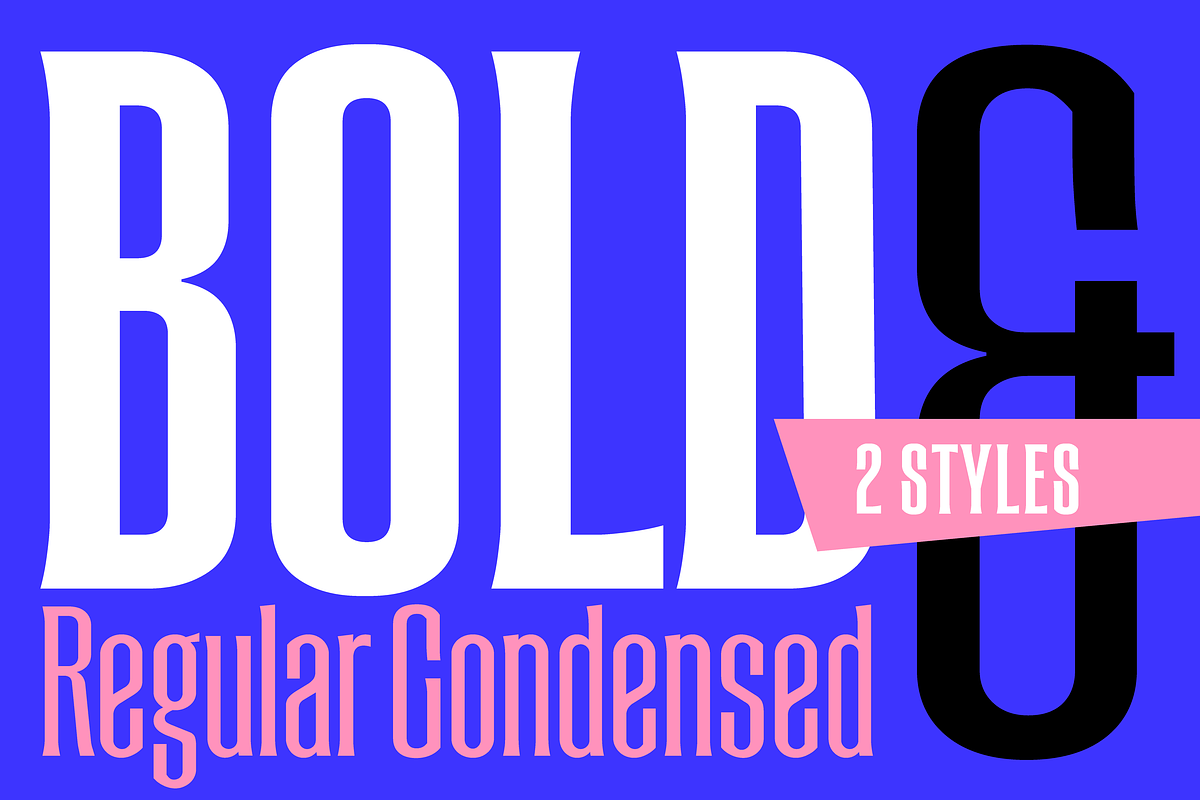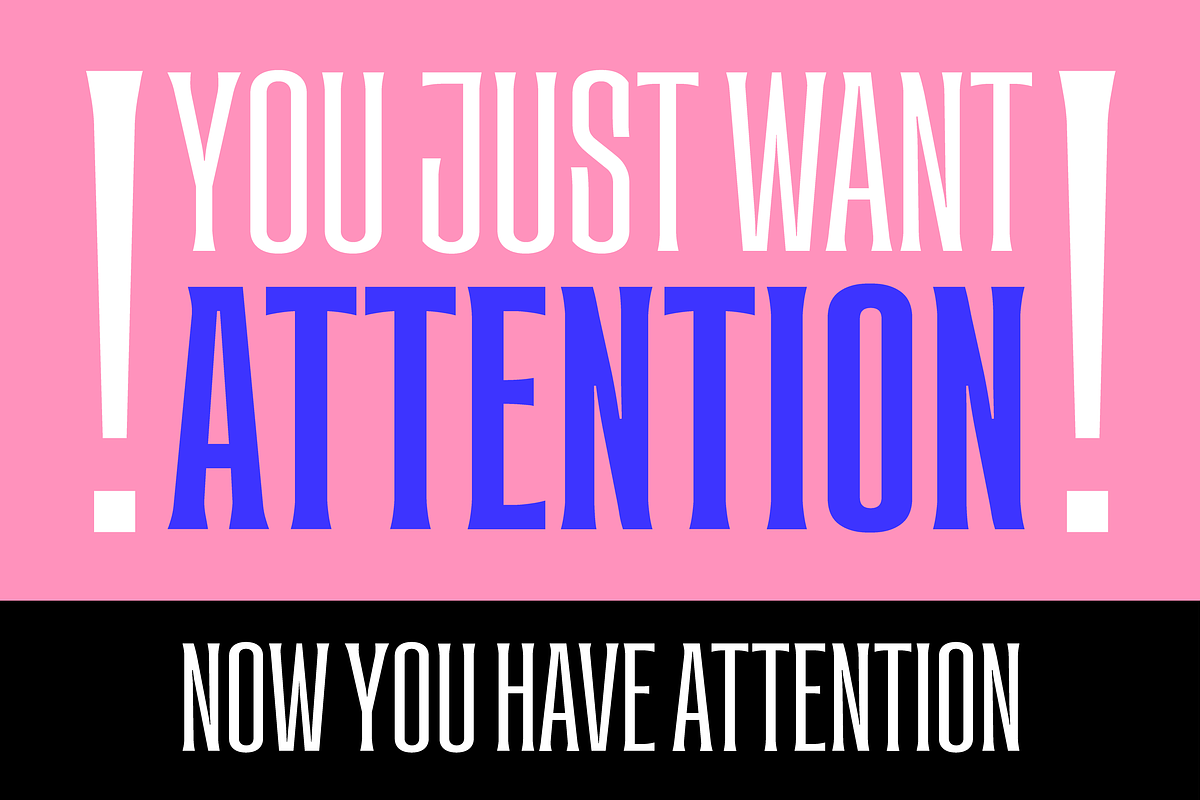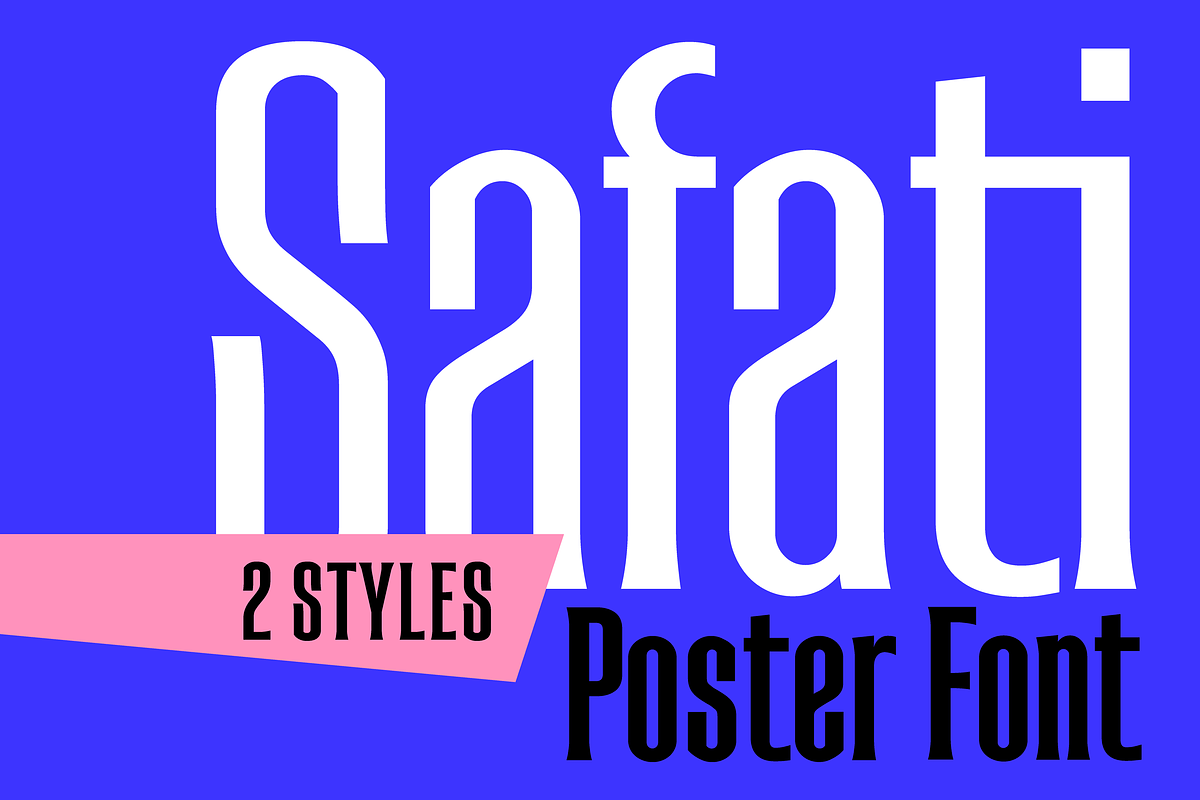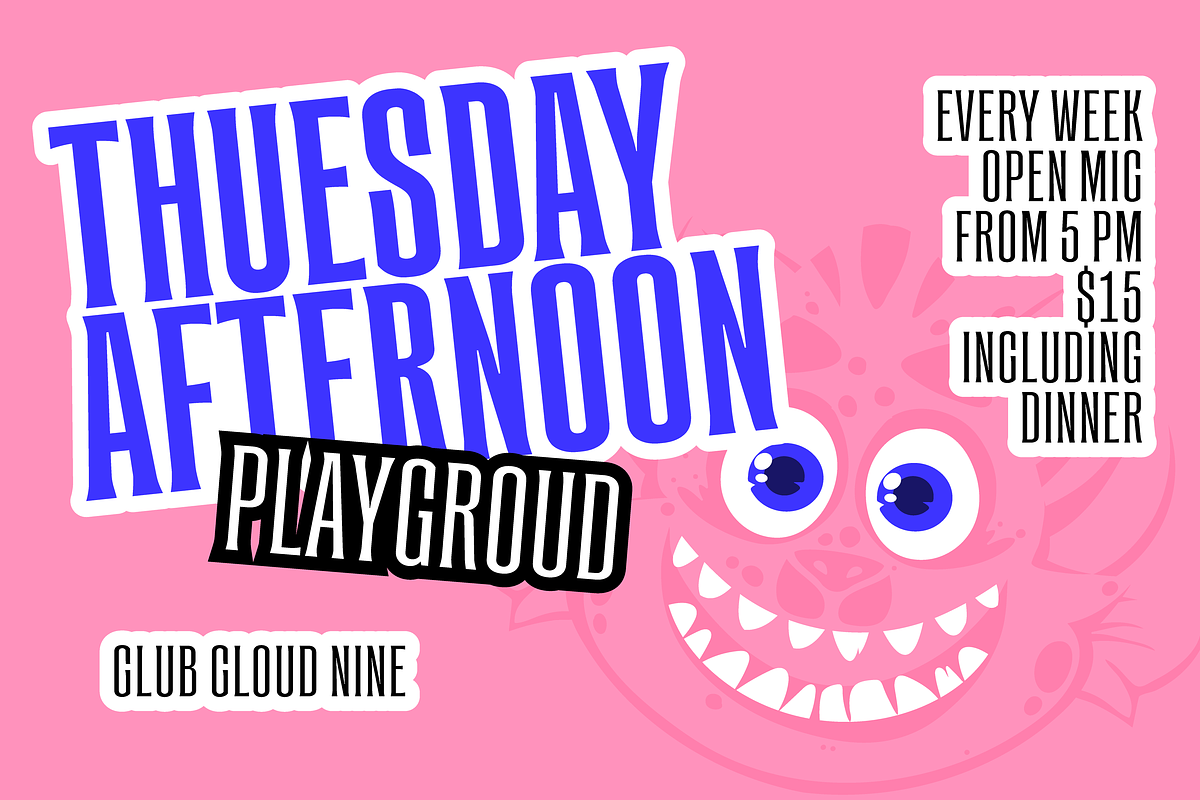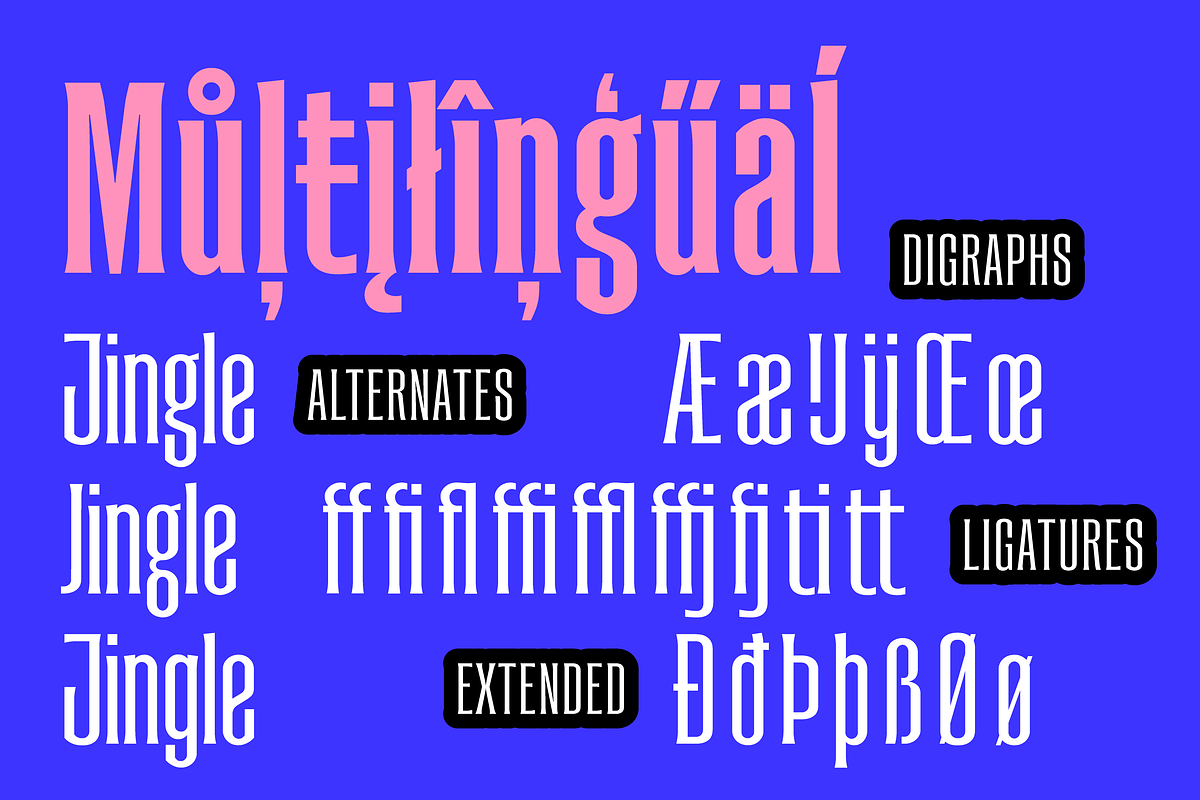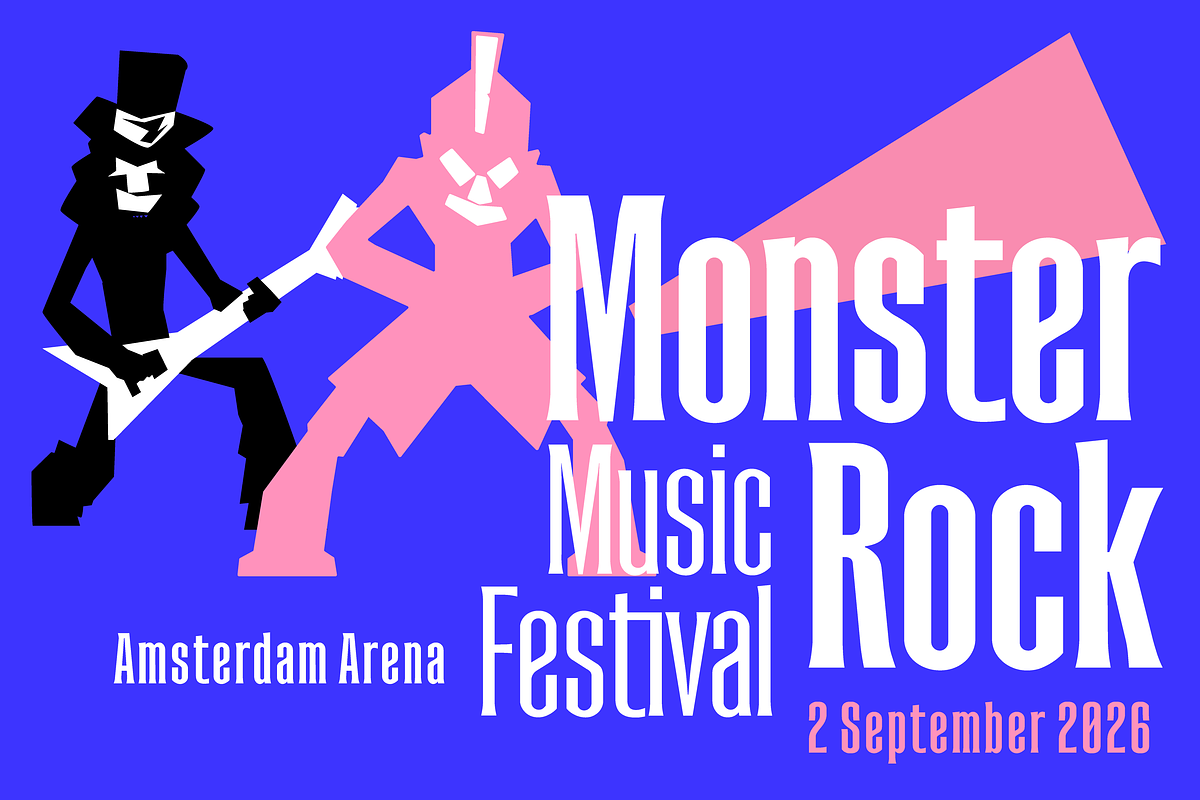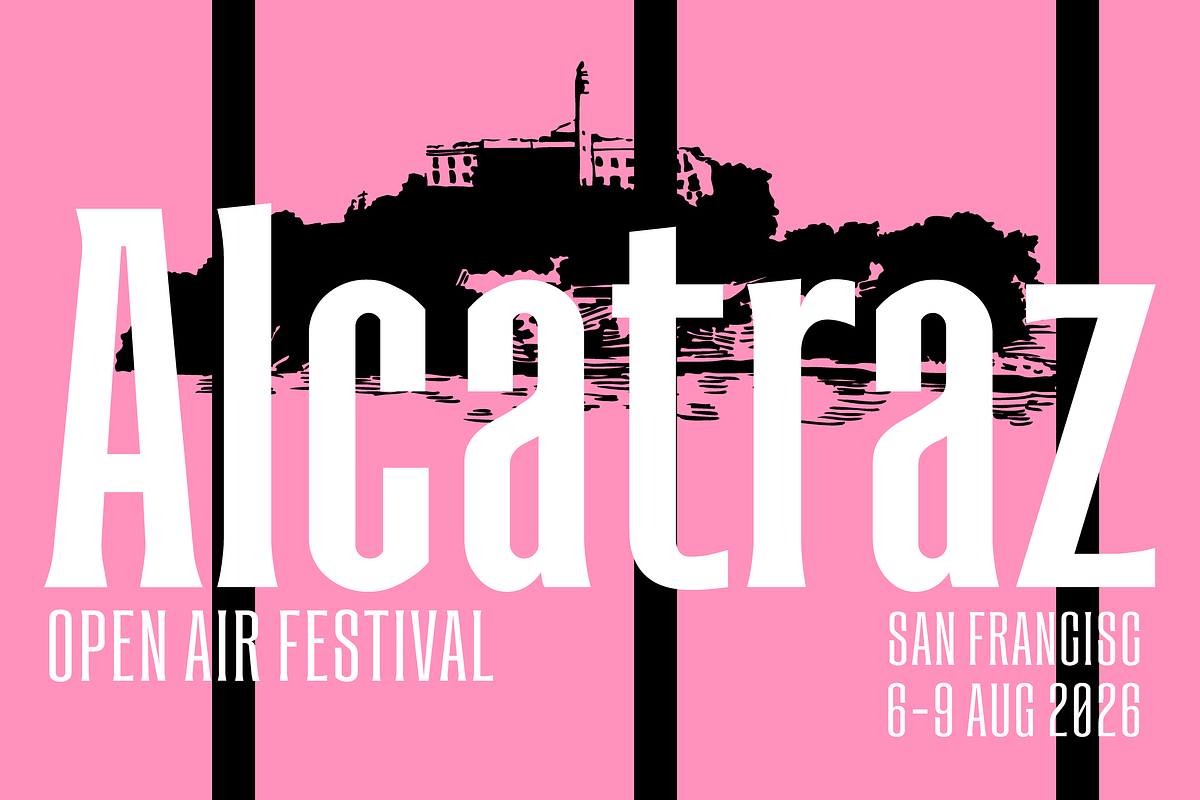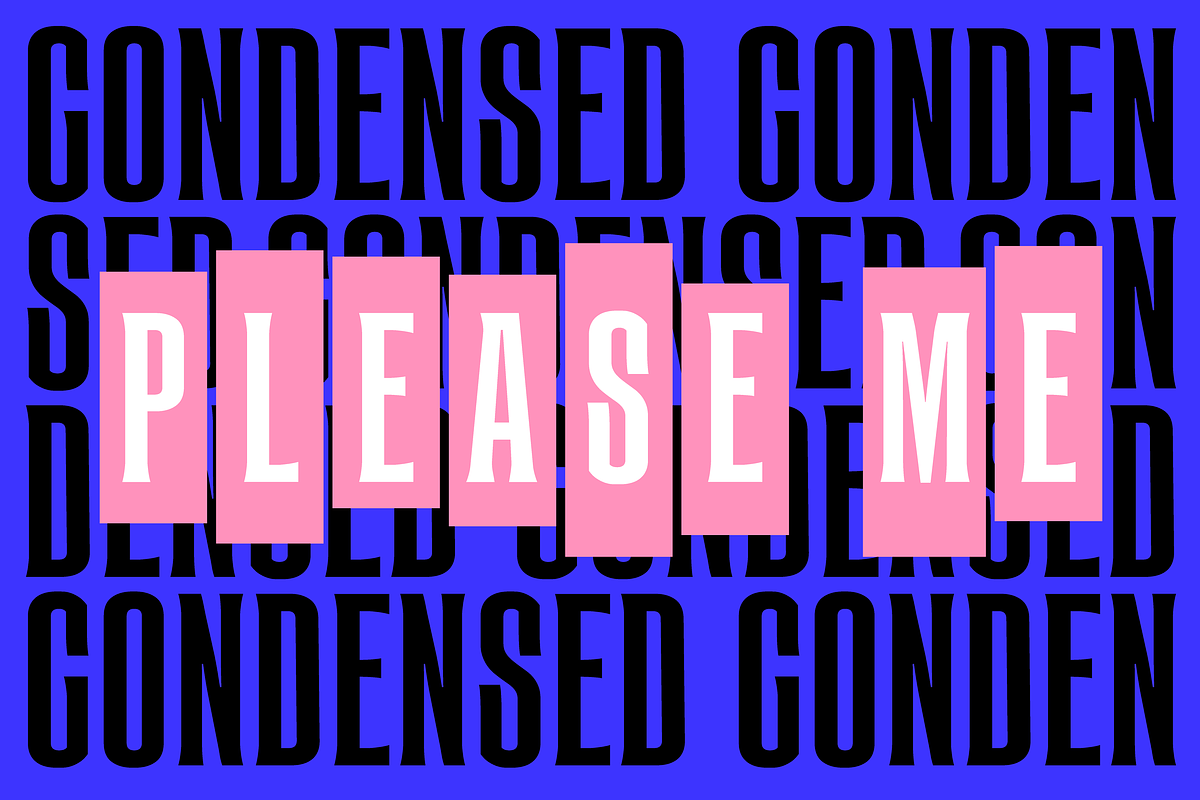
Safati - Cutting-edge elegance
Safati is a compact serif typeface with distinctive character, inspired by the vintage look of nineteenth-century wood type. The subtle serifs lend this typeface a touch of elegance and striking appeal. At the same time, Safati has a modern look that effortlessly complements bold, contemporary imagery. The visual impact is particularly striking at larger sizes. Safati's condensed and compact design makes it ideal for headlines, posters, covers, and more. The subtle serifs evoke the carved lettering of nineteenth-century block letters and, thanks to the font's narrowness, appear to have stepped straight off a Western poster. Safati is available in two styles: Regular and Bold.